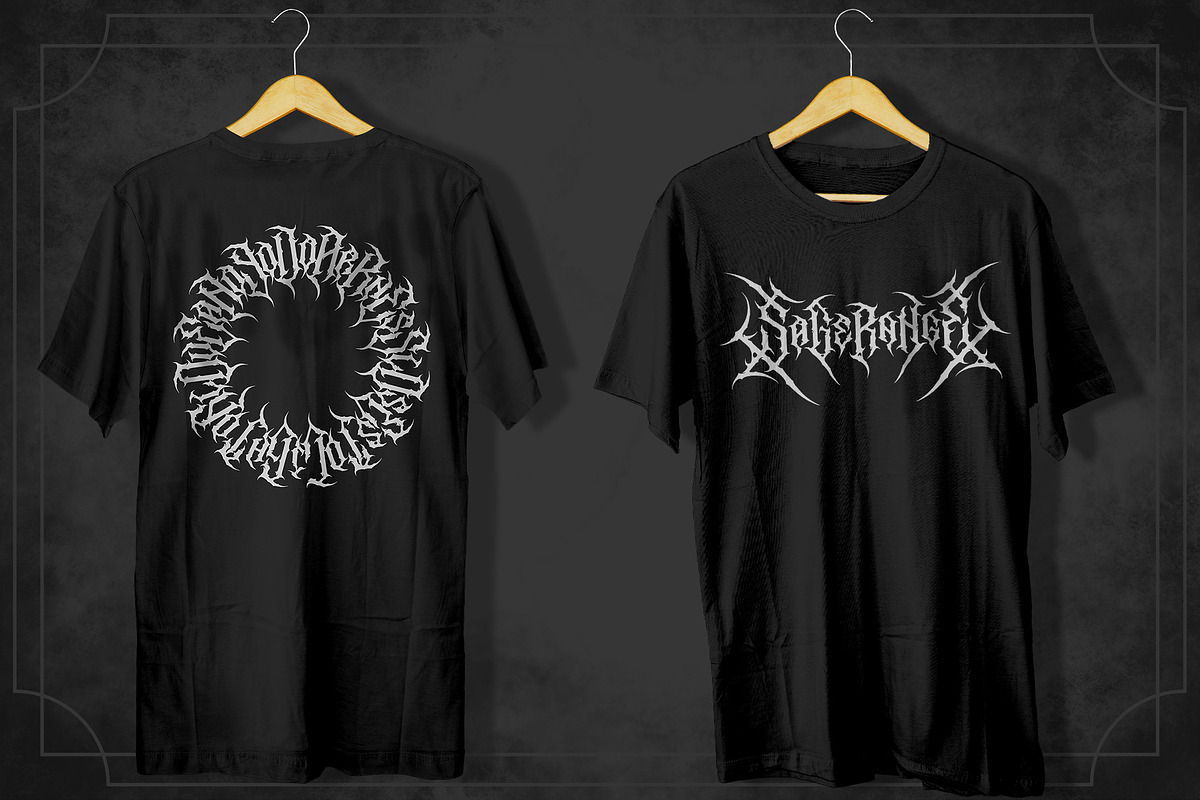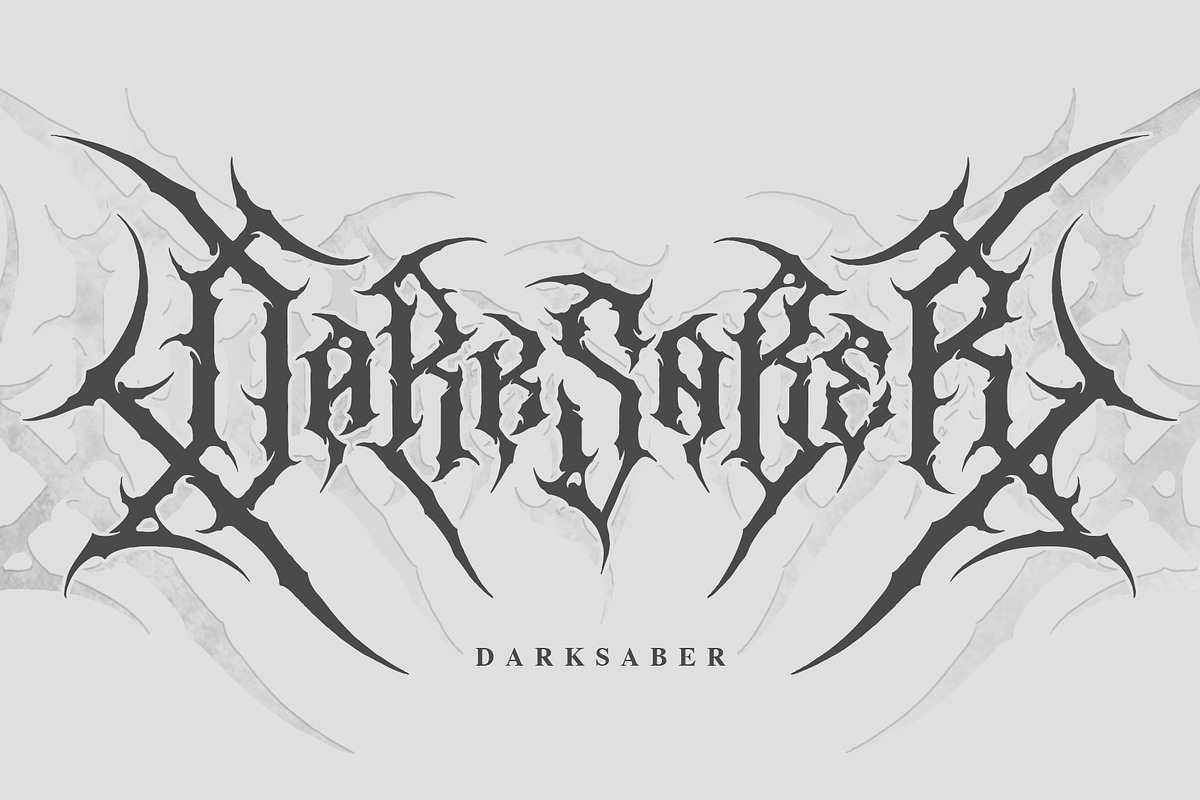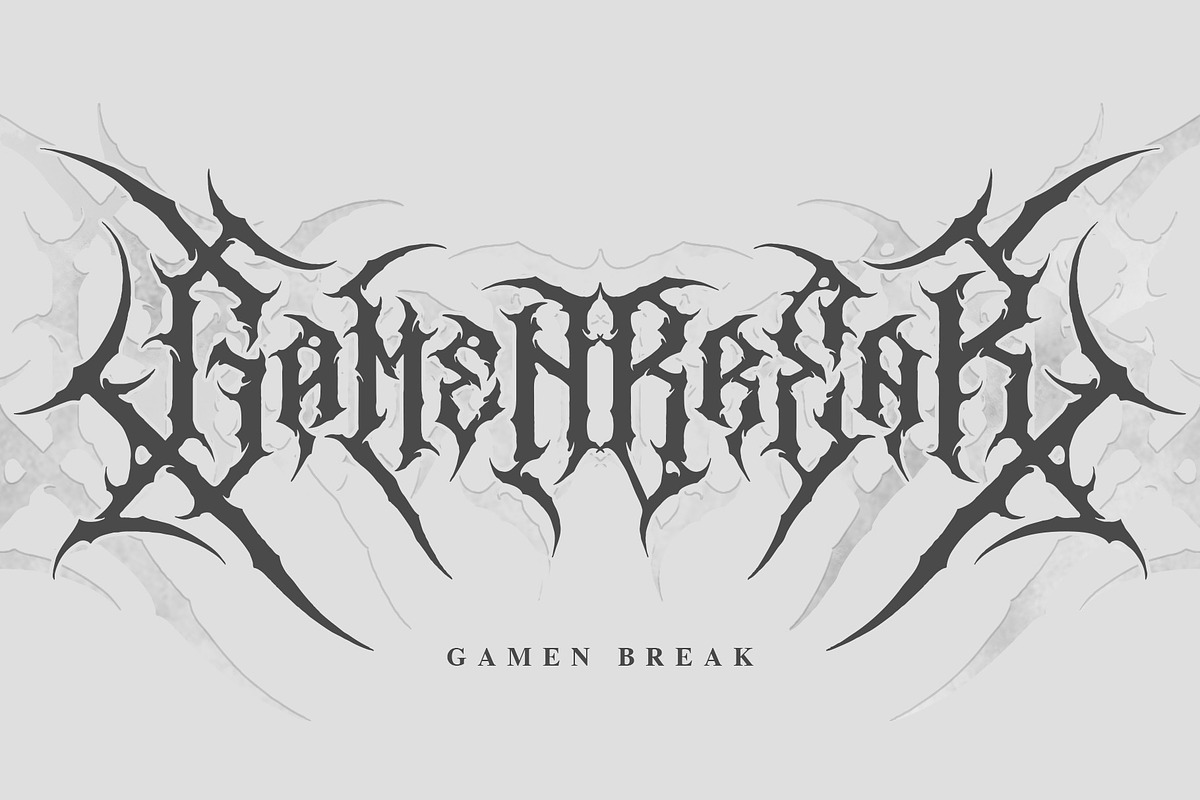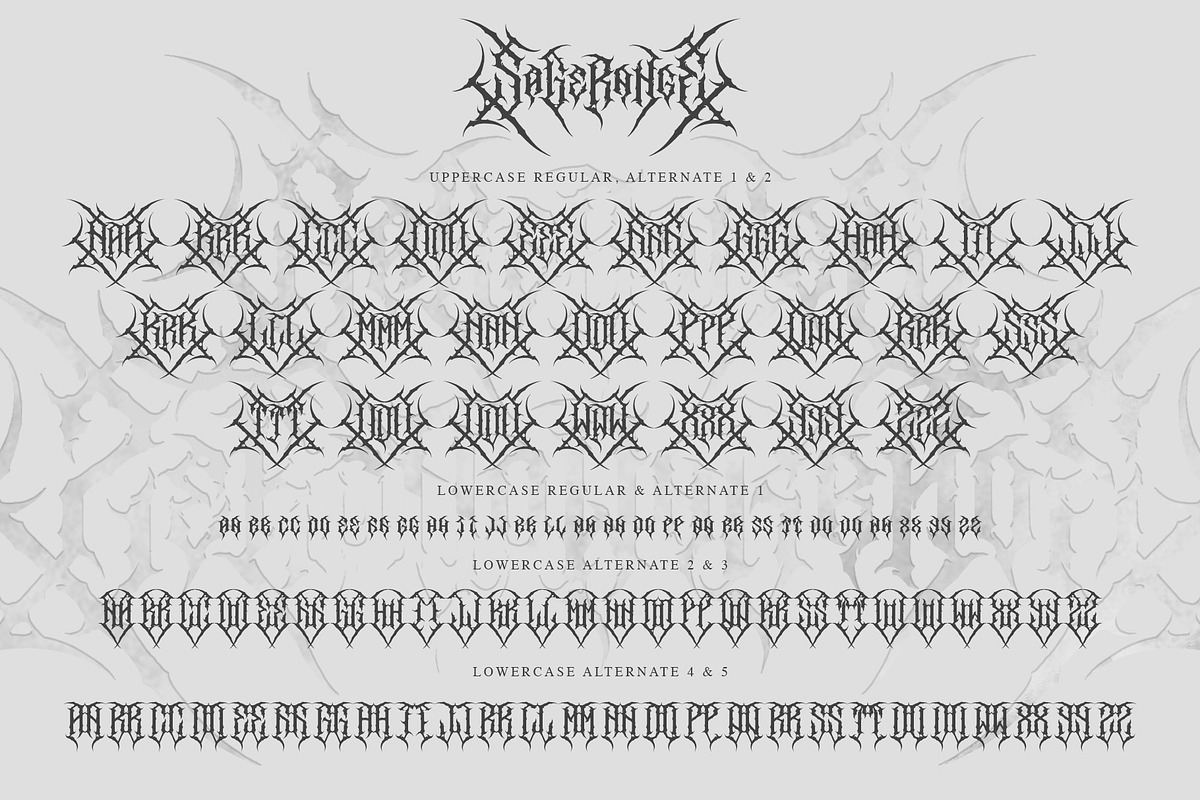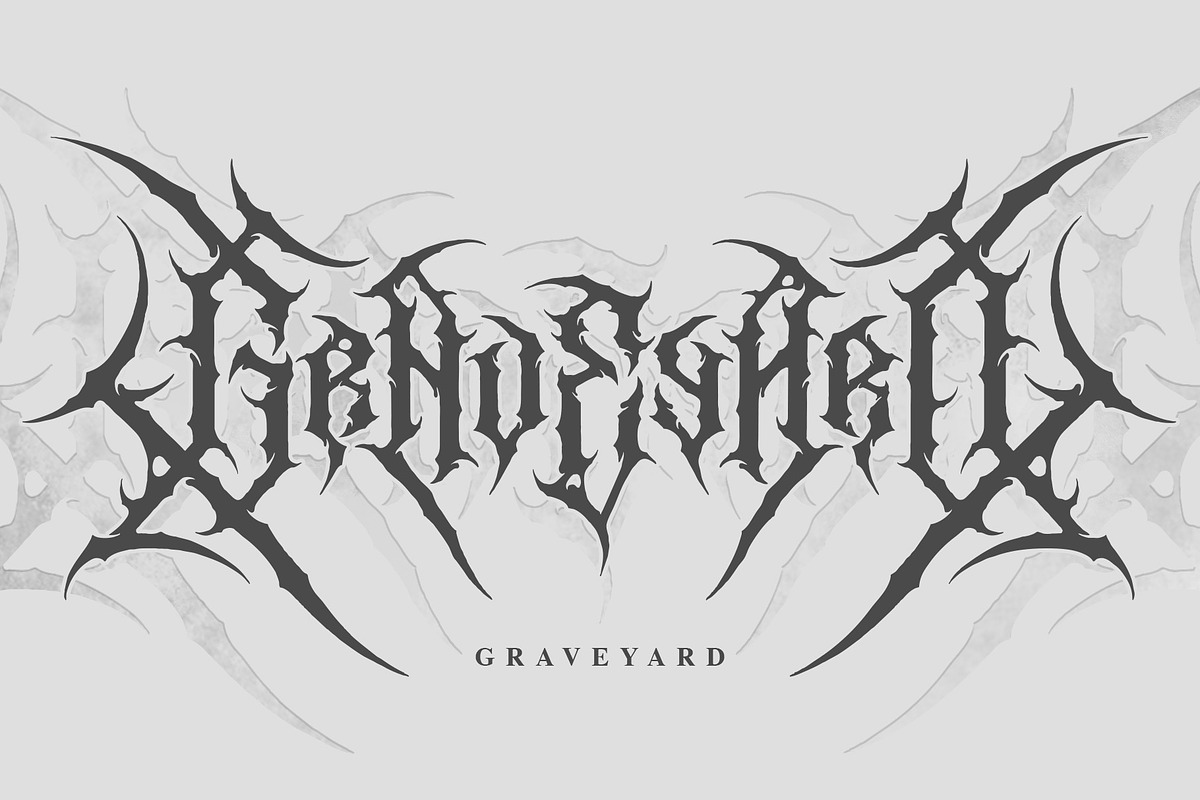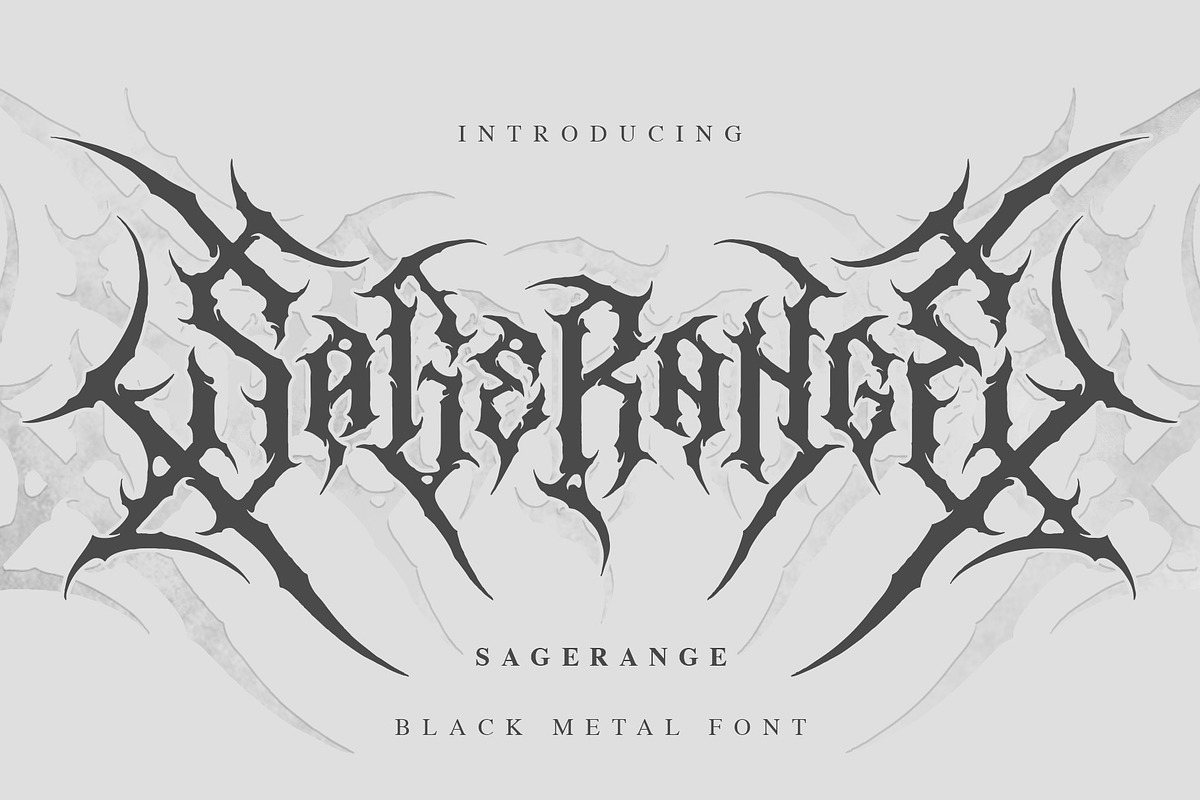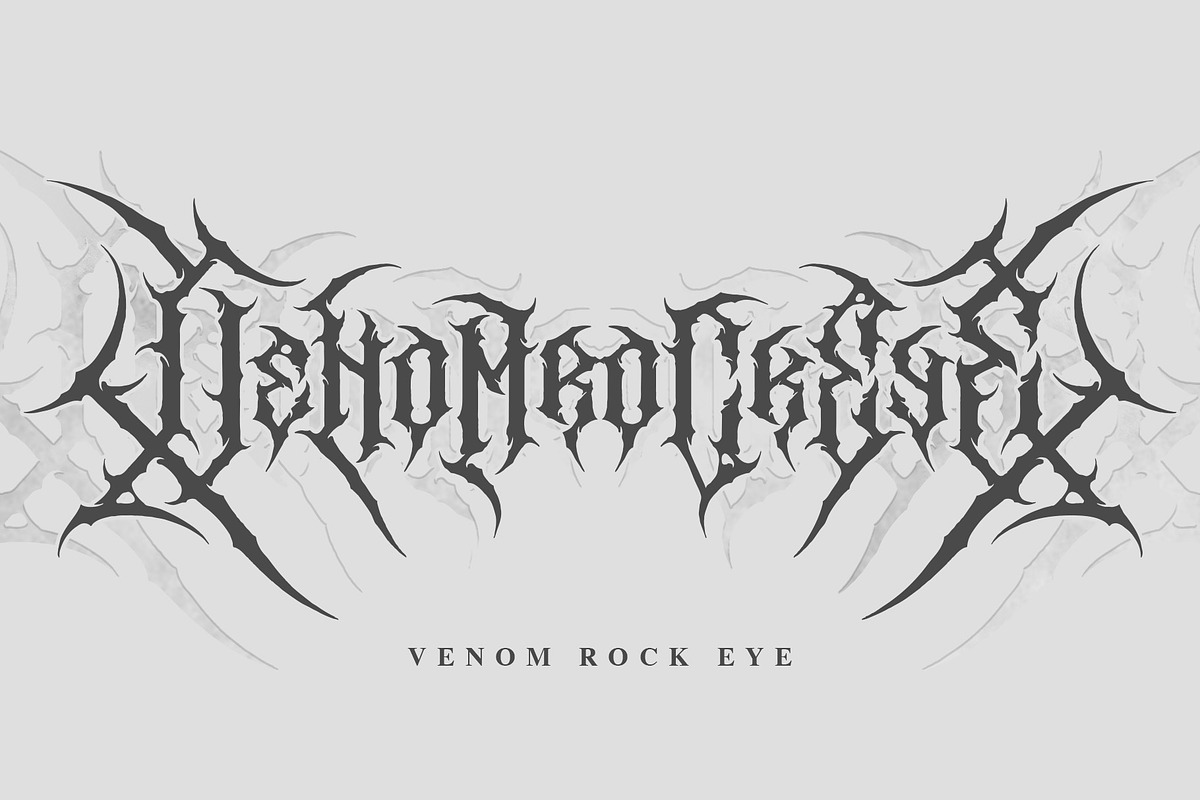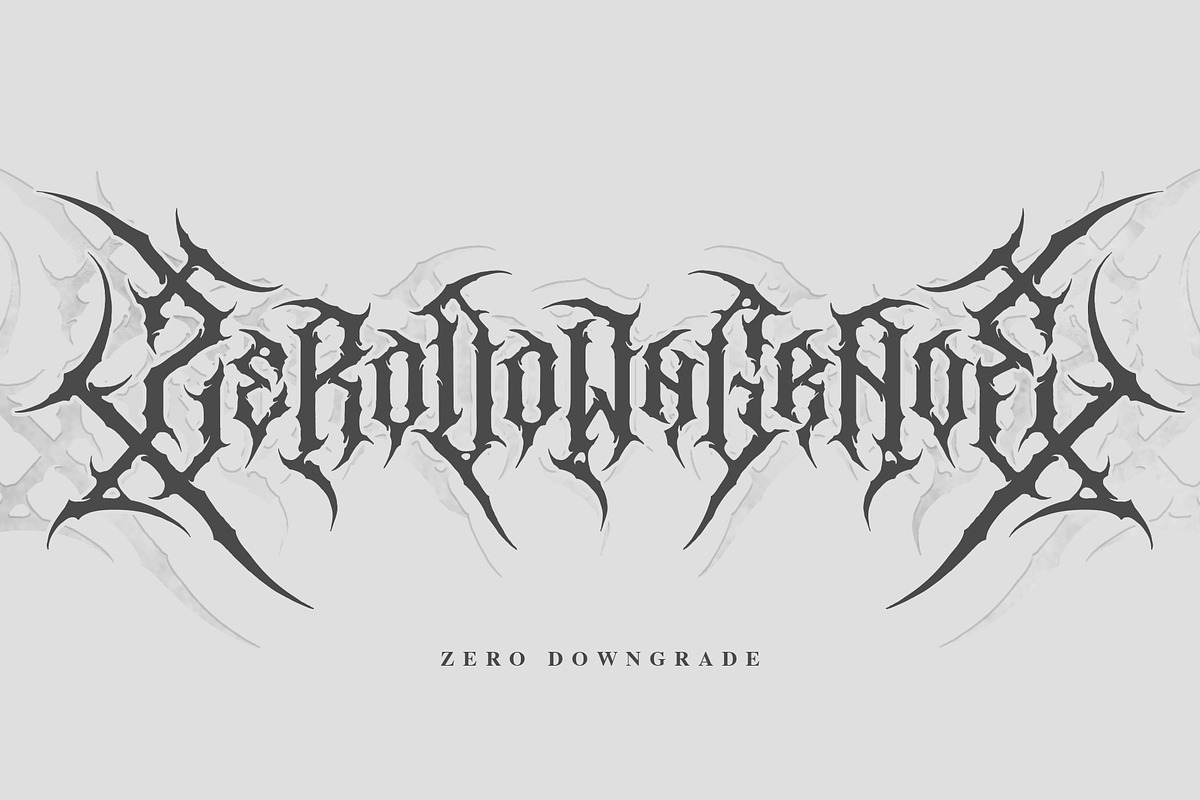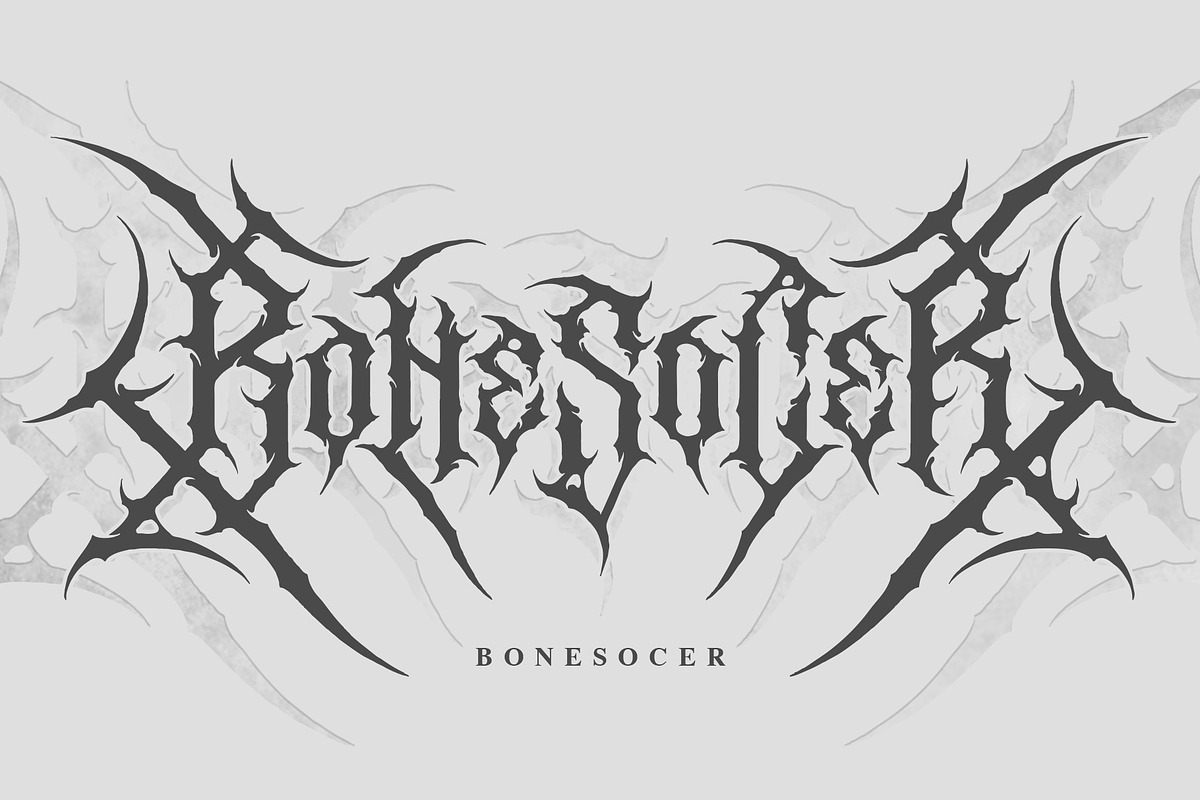
Sagerange | Black Metal Font Vol. 11
Sagerange is a blackmetal font that has a realistic blackmetal logo feel. This font is rich in variations so it can be applied beautifully according to your wishes. This font combines blackletter and blackmetal styles so it has an elegant, cool and frightening impression. Sagerange font is suitable for band logos, apparel, song titles, game titles, and movie titles.